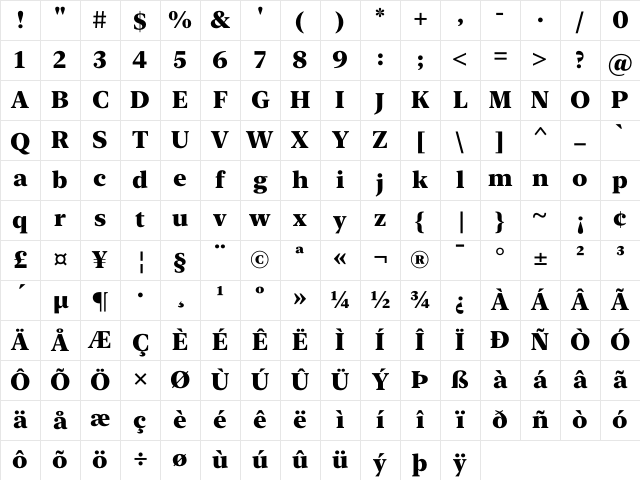
Complete New York Large Heavy glyph index. Displaying only characters natively supported by New York Large Heavy font.
New York Large is a composed and adaptable typeface that performs quietly and consistently across a wide range of design contexts.